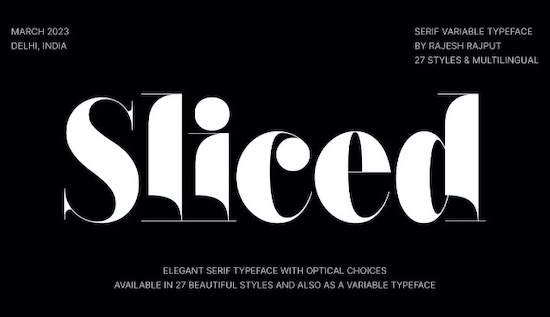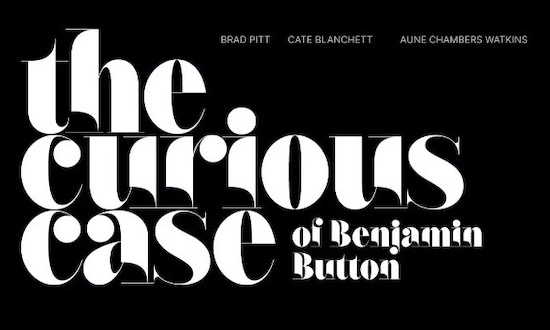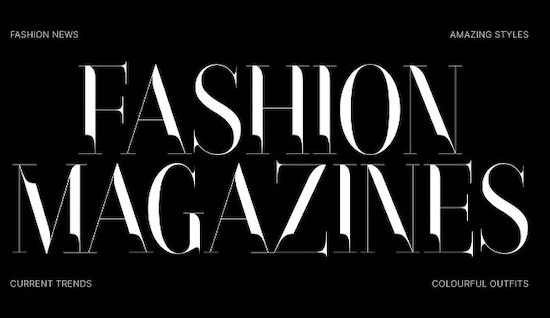
Sliced Font Family
Sliced Font is a display serif typeface with a vintage look and distinctive style, specially designed for vintage projects. With 9 different weights ranging from Thin to Black, each featuring three optical variations – Display, Title, and Heading – for a total of 27 styles, this font offers versatility and flexibility for any design project. Its elegant and luxurious appearance makes it an ideal choice for creating logos, book or movie titles, fashion brands, magazines, clothing, lettering, quotes, and many other design applications.